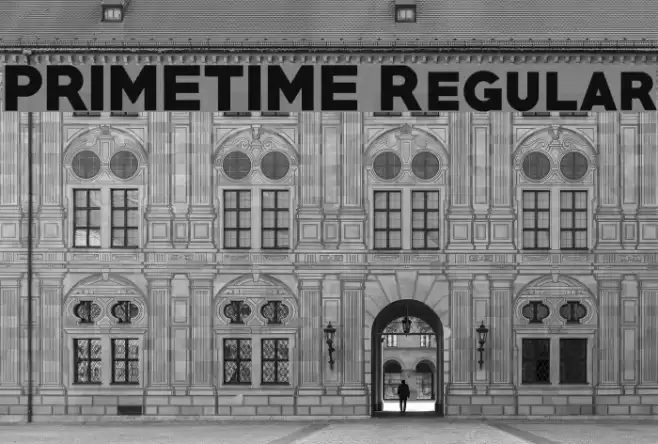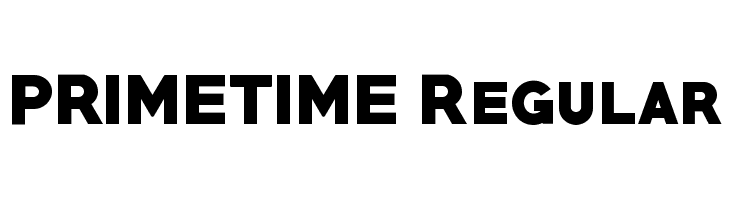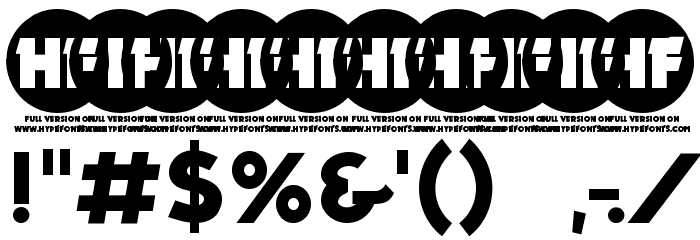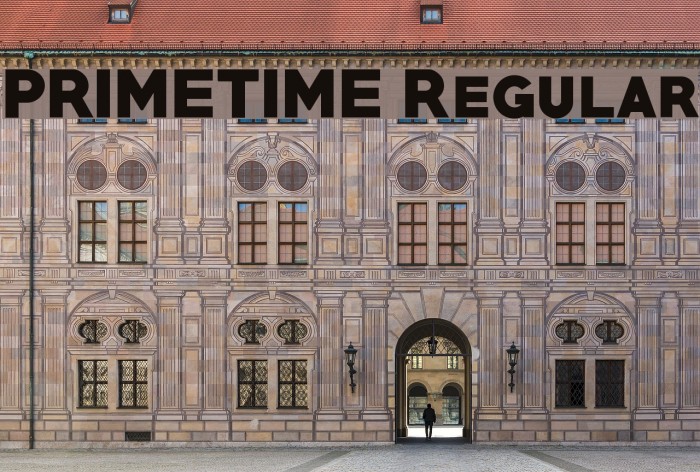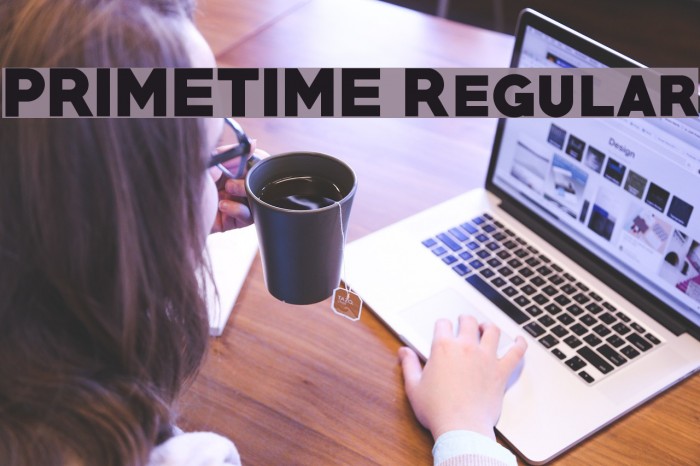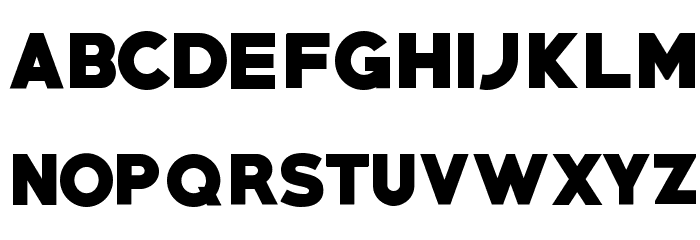
PRIMETIME Regular Font
PRIMETIME Regular Description
This font features bold, geometric letterforms with a strong presence. The characters are uniformly thick, creating a solid and impactful appearance. The uppercase letters are particularly striking, with clean lines and a modern aesthetic. The font maintains a consistent weight throughout, offering a sense of stability and confidence. Its design is straightforward yet powerful, making it suitable for attention-grabbing headlines and titles. The spacing between characters is tight, enhancing its boldness and ensuring a cohesive look across text. Special characters are included, maintaining the same bold style.
A bold, geometric font with a modern and impactful design from Uncategorized fonts.
- Proposed Projects: Ideal for branding, advertising, posters, and any project requiring a strong visual impact.
- Character Spacing: Tight